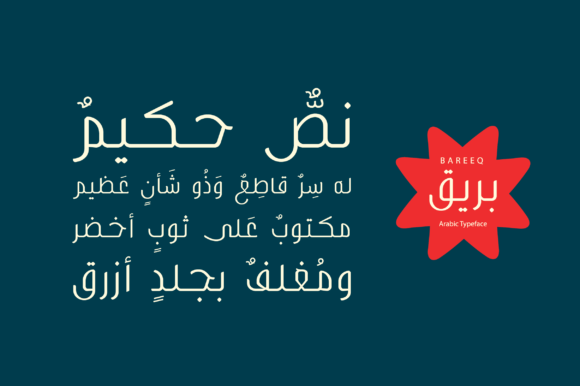
Introducing Bareeq Font - The Radiant Arabic Typeface That Illuminates Your Designs
In a world clamouring for attention, your designs need a voice that resonates, a language that captivates. Bareeq is not just a font; it's a gateway to a rich cultural heritage, a bridge between the past and the future.
With its graceful curves and distinctive glyphs, Bareeq exudes an aura of sophistication and elegance. Its Arabic roots infuse your designs with authenticity and a touch of exotic allure. Every letterform is meticulously crafted, a symphony of lines and strokes that evokes the beauty of Arabic calligraphy.
Bareeq is a versatile font family, spanning from light to bold weights, providing endless possibilities for creative expression. Its diverse range of styles adapts seamlessly to a myriad of design applications, from captivating posters to elegant branding, from alluring social media graphics to mesmerizing presentations.
With Bareeq, you're not just choosing a font; you're embarking on a journey through the rich tapestry of Arabic culture. Unleash your creativity and watch your designs transform into masterpieces that speak to the soul.
Features That Make Bareeq Font Irresistible:
- Arabic Typeface Rooted in Heritage: Bareeq's Arabic roots shine through in its intricate letterforms, adding a touch of authenticity and cultural depth to your designs.
- Diverse Range of Weights: From delicate light to commanding bold, Bareeq offers a versatile range of weights that cater to every design vision, ensuring perfect harmony with your creative intent.
- Meticulously Crafted Glyphs: Each glyph in the Bareeq font family is a testament to meticulous craftsmanship, ensuring crisp and visually appealing text that elevates your designs.
- Seamless Adaptation to Various Applications: Whether it's posters, branding, social media graphics, or presentations, Bareeq effortlessly adapts to a multitude of design applications, enhancing your creative expressions.
- A Gateway to Cultural Fusion: Bareeq seamlessly blends traditional Arabic script with modern design, creating a unique fusion that resonates with audiences worldwide, fostering cultural understanding and appreciation.